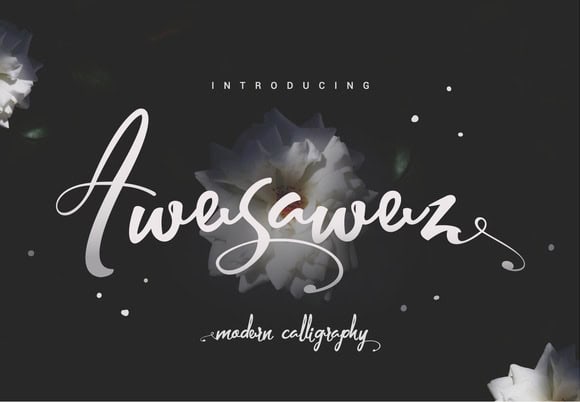
awesawez
Awesawez Font offers a distinct and playful style, perfect for creative projects. Available in OTF, TTF, and WOFF formats for versatile usage.
Explore the Playful Charm of Awesawez Font
Awesawez Font, crafted by innovative designer Alex Rim in 2023, stands out with its whimsical and distinct characters. Ideal for children’s books, playful branding, and creative projects, this font infuses fun and originality into any design.
Features and Formats of Awesawez Font
Behind the Creation of Awesawez Font
Inspired by childhood creativity and playful imagination, Awesawez Font was brought to life by Alex Rim. The font combines bold strokes with whimsical letterforms, making it an excellent choice for projects that aim to convey joy and energy, effectively capturing the lively spirit of playful design.
Ideal Uses for Awesawez Font
Awesawez Font is perfect for a variety of applications, from eye-catching logos to vibrant posters and children’s literature. Its unique characteristics lend themselves well to branding that seeks to connect with a younger audience or convey a sense of fun and creativity.